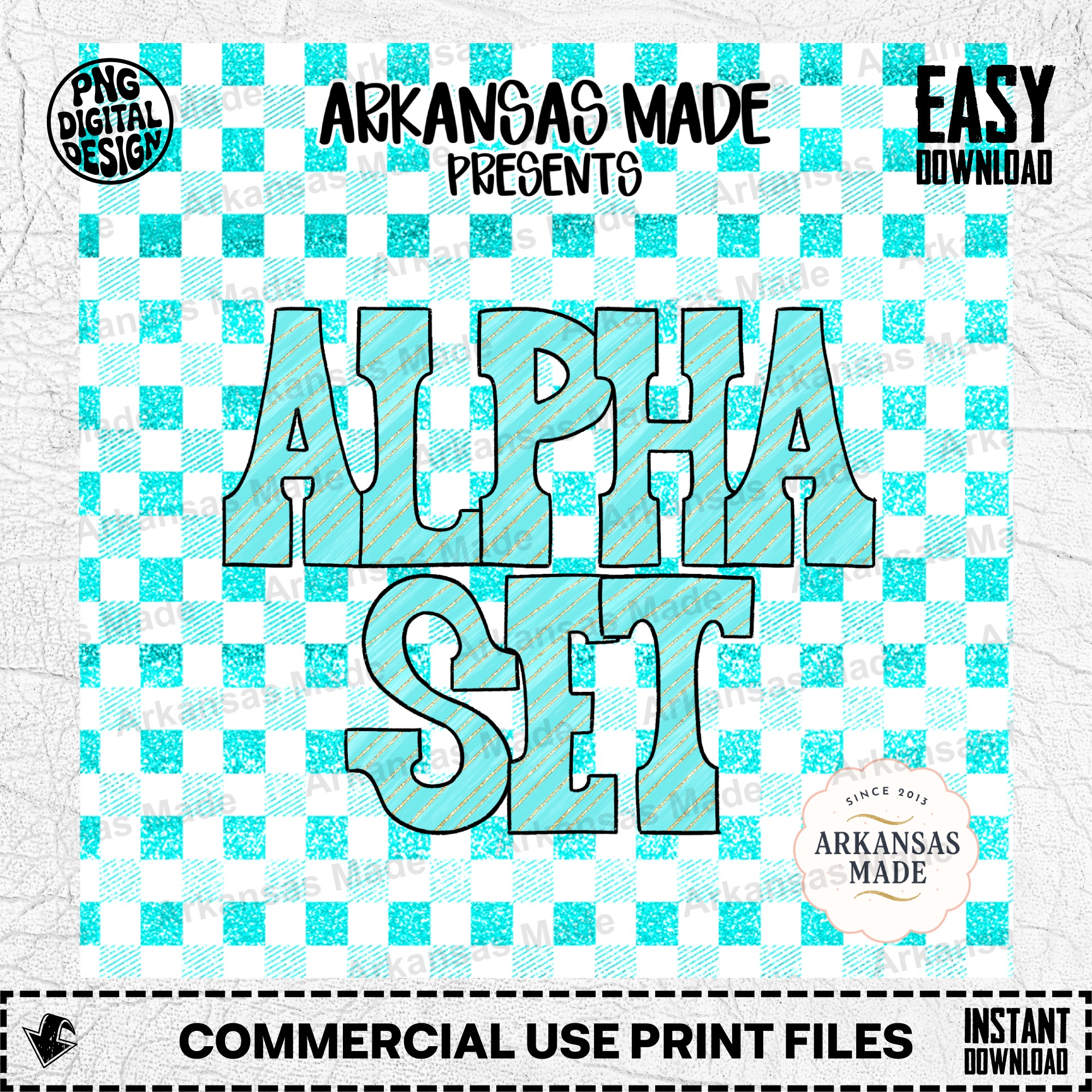
Alpha PNGs Gold Striped Blue Teal Alphabet Set, Chunky Digital Letters for Sublimation, Commercial Use Crafting Font
Elevate your creations with these vibrant Alpha PNGs featuring a teal blue base with a dazzling faux gold print stripe effect. Perfect for custom projects! This chunky digital alphabet set offers a playful and bold aesthetic, ideal for crafters, small business owners, and DIY enthusiasts. Create stunning personalized items, unique apparel, party decor, or engaging educational materials. A versatile tool for crafting bespoke gifts for birthdays, holidays, or any special occasion.